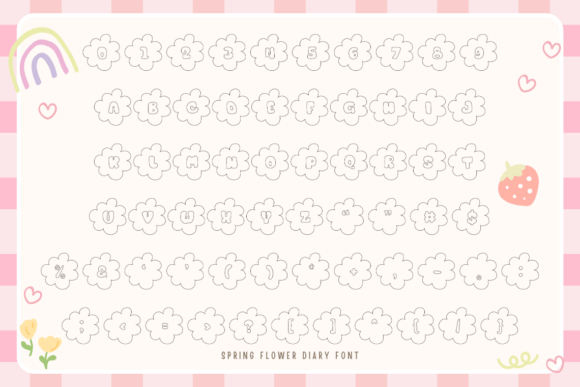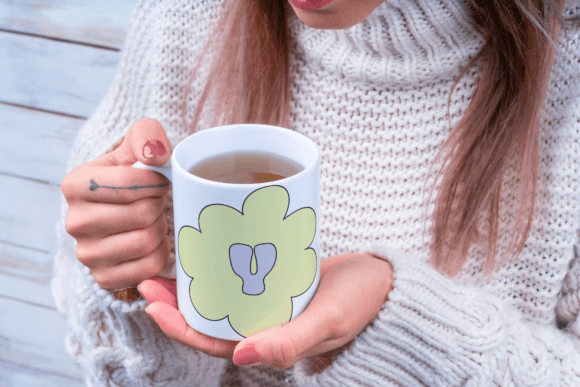
Spring Flower Diary Font
Introducing Spring Flower Diary Font! This elegant handwritten alphabet is adorned with delicate floral accents, capturing the beauty and vibrancy of the spring season. Perfect for adding a touch of sophistication to your designs, this font is ideal for a wide range of purposes, from inspiring creative projects to celebrating special occasions. Let Spring Flower Diary Font bring a breath of fresh air and a burst of color to your designs, making every project blossom with beauty and charm!